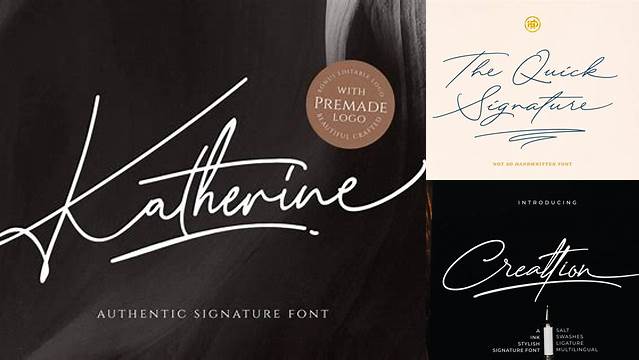
Hey everyone! Are you on the hunt for a way to add a touch of vintage charm and a personal flair to your designs? Look no further! Today, we're diving deep into the world of retro signature fonts, and the best part? You can get your hands on them for free! These fonts are perfect for everything from crafting eye-catching logos and branding materials to creating stunning social media graphics and personalized stationery. We'll explore various styles, from elegant scripts to bold, handwritten signatures, giving you a comprehensive guide to finding the perfect retro signature font to elevate your projects. So, buckle up, and let's get started on this exciting journey of font discovery!
H2: Unleashing the Charm: Why Retro Signature Fonts are Trending
Alright, guys, let's talk about why retro signature fonts are so incredibly popular right now. It's more than just a passing trend; it's a genuine resurgence of classic aesthetics. These fonts carry a certain level of authenticity and nostalgia that connects with audiences on a deeper level. They evoke feelings of craftsmanship, personality, and a time when things were made with care and attention to detail. When you choose a retro signature font, you're essentially telling a story. You're saying, "I value originality, personality, and a touch of the past." This can be incredibly powerful for businesses and individuals alike.
Think about it: in a world saturated with digital everything, a handwritten-style font offers a refreshing dose of the human touch. It makes your brand or personal project feel more approachable, relatable, and trustworthy. Plus, these fonts are incredibly versatile. They work beautifully in a wide range of applications, from logos and business cards to website headers, social media posts, and even wedding invitations. The key is to choose a font that aligns with your overall brand aesthetic and message. Whether you're aiming for a vintage, elegant, or rustic vibe, there's a retro signature font out there that will fit the bill perfectly. Don't forget that the right font can drastically impact the way your audience perceives your brand.
Another reason for their popularity is their ability to stand out. With so many generic fonts available, a retro signature font immediately grabs attention. It adds a unique element that sets your design apart from the crowd. This is especially important in competitive markets, where making a lasting impression is crucial. These fonts are not just about looking good; they're about communicating personality and brand identity. They can evoke feelings of nostalgia, sophistication, or playfulness, depending on the style you choose. Choosing the right font is a critical step in branding and design.
H3: The Emotional Connection: Nostalgia and Authenticity
Why do these fonts resonate so deeply? It's the emotional connection. Retro signature fonts tap into nostalgia, evoking feelings of warmth, familiarity, and a sense of the past. This can be particularly effective in building brand loyalty and trust. When people see a font that reminds them of a cherished memory or a simpler time, they're more likely to feel connected to your brand.
Authenticity is another major factor. These fonts often mimic the look of handwritten signatures, which adds a human touch that can be incredibly appealing. In an era of digital everything, this sense of authenticity can be refreshing and reassuring. People appreciate brands that feel genuine and relatable. Retro signature fonts give your brand a character and uniqueness that make it stand out. It's a great way to create a connection with your audience.
Think about the power of a handwritten note versus a typed email. The handwritten note feels more personal, more thoughtful, and more special. Retro signature fonts bring a similar sense of intimacy to your digital designs. They make your brand feel more approachable, more human, and more memorable. These fonts are perfect for creating an emotional connection with your target audience. In essence, these fonts allow you to build a more meaningful relationship with your audience.
H2: Finding Your Perfect Match: Types of Retro Signature Fonts
Okay, so you're pumped about retro signature fonts. Now, let's talk about the different types and how to choose the perfect one for your needs. There's a wide range of styles, from elegant scripts to bold, playful signatures. Understanding the nuances of each style will help you make the best choice for your project. The retro signature font world is diverse, so let's discover what’s available out there.
H3: Elegant Script Fonts: Sophistication and Grace
If you're aiming for a touch of sophistication and elegance, an elegant script font is the way to go. These fonts often feature flowing lines, delicate curves, and a sense of refined beauty. They're perfect for branding projects that require a premium feel, such as luxury goods, wedding invitations, or high-end services. They embody sophistication and grace and will elevate your branding design. A great choice for brands that want to give off a classy vibe.
When selecting an elegant script font, pay attention to the details. Look for fonts with well-balanced letterforms, smooth connections between letters, and a good range of weights. The kerning (the spacing between letters) should be carefully considered to ensure readability. You want a font that is both beautiful and functional. This style adds an exclusive look to your design. This style works well for logos, signatures, and headings. These are perfect for adding a touch of timeless beauty.